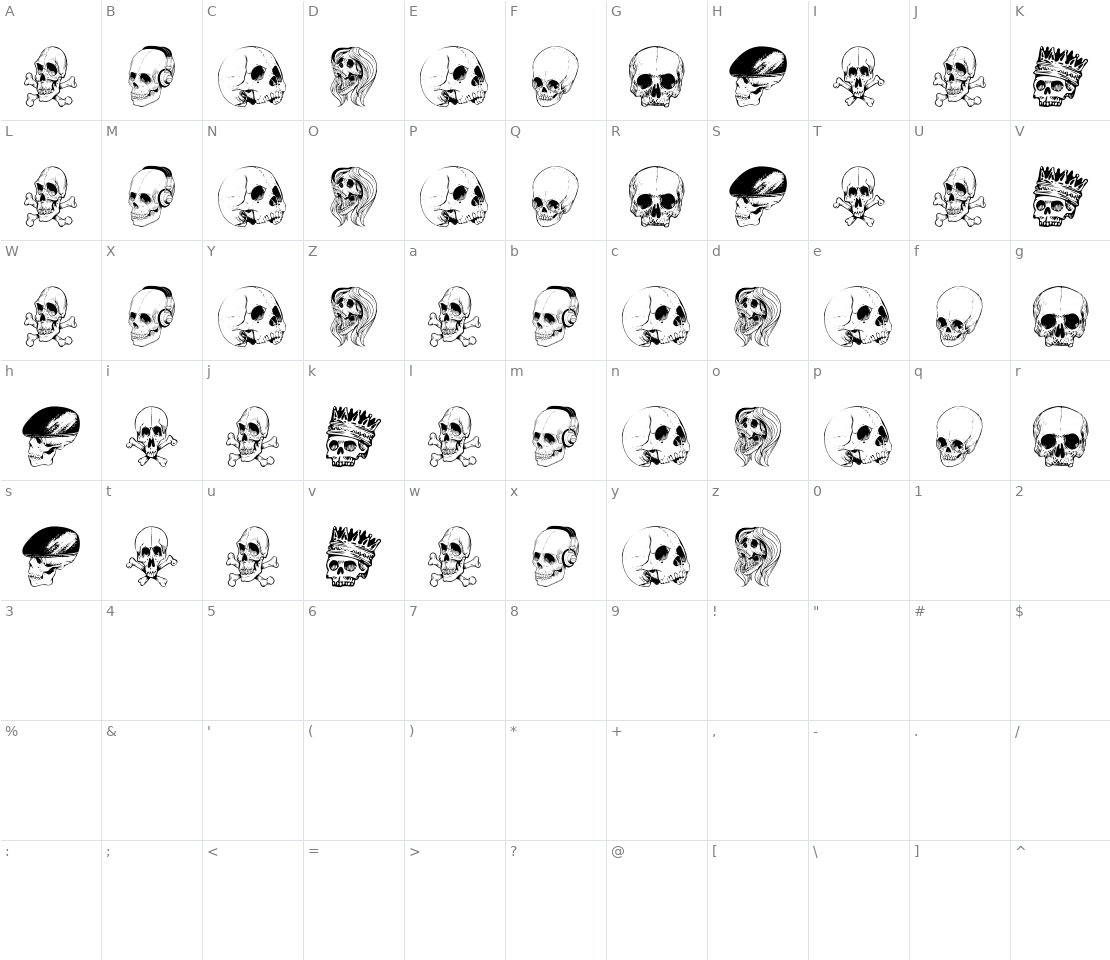
Skull Font
Skull Font by Billy Argel is a decorative novelty face where the letterforms are built from skulls, crossbones, and other macabre imagery. It's purely ornamental, the kind of thing you reach for when designing Halloween invitations, horror event flyers, or anything that needs an over-the-top spooky atmosphere at a glance. Legibility takes a backseat to visual impact, so keep it big and use it sparingly.